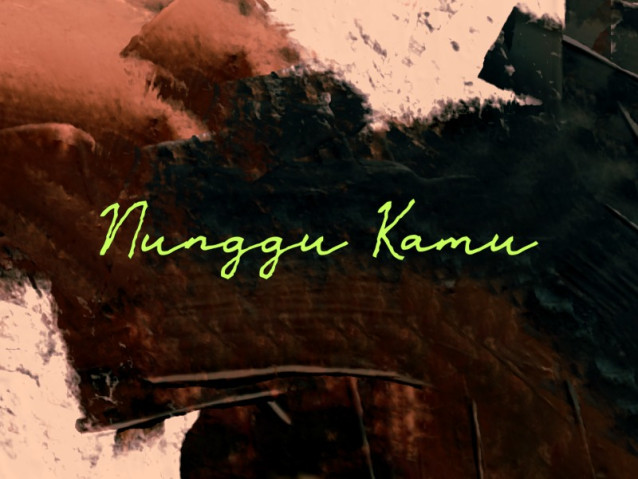
Nunggu Kamu Font
Nunggu Kamu Font is a simple and friendly handwritten font. Its natural and unique style makes it incredibly fitting to a large pool of designs. The only limit is your imagination!